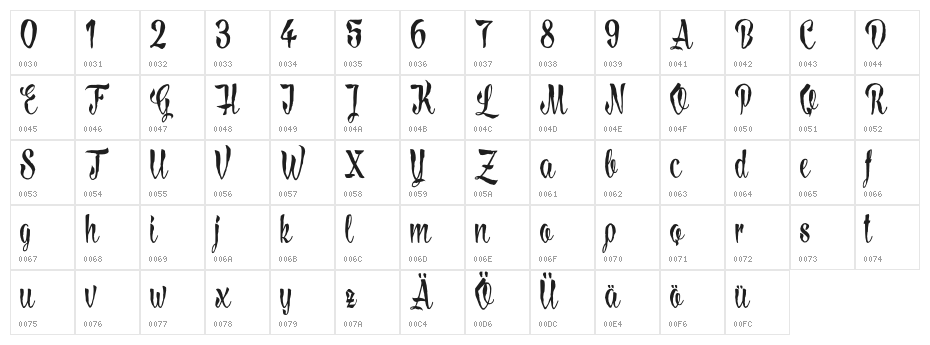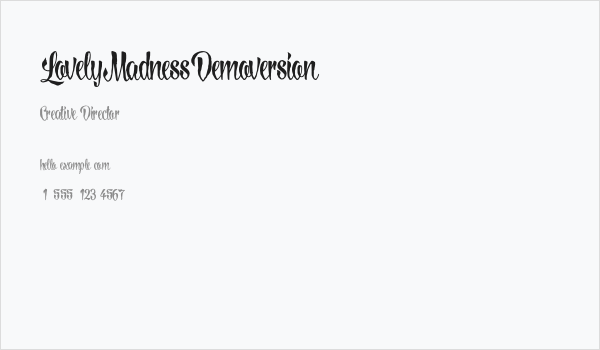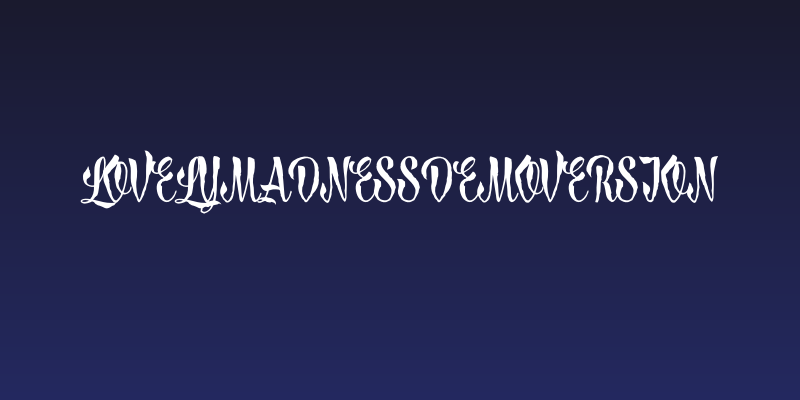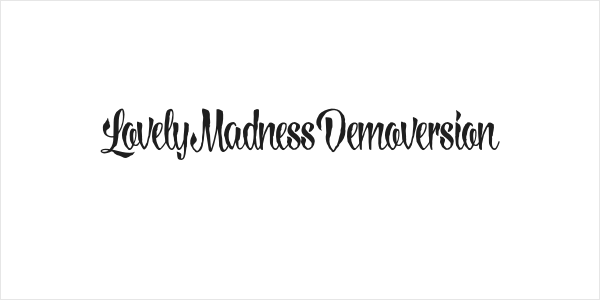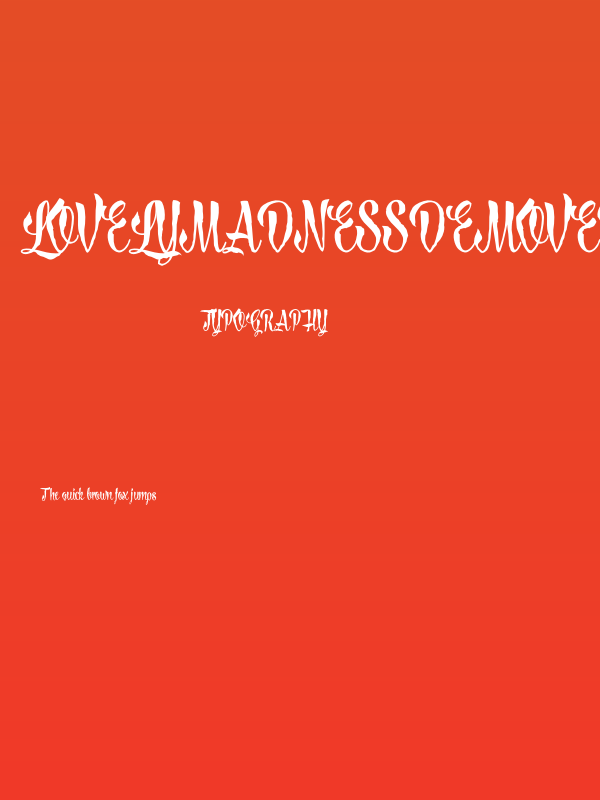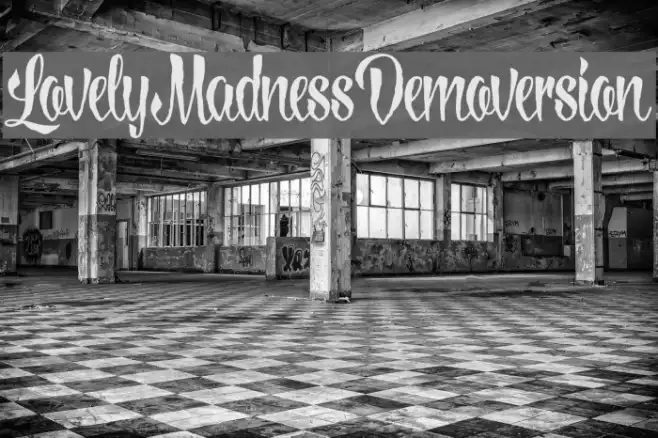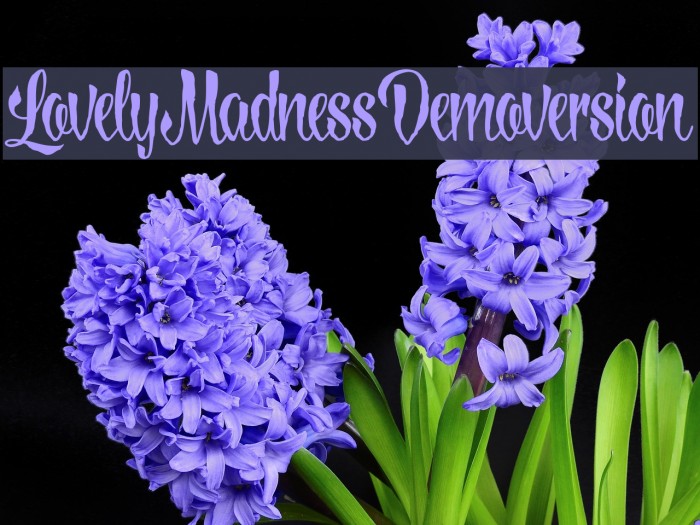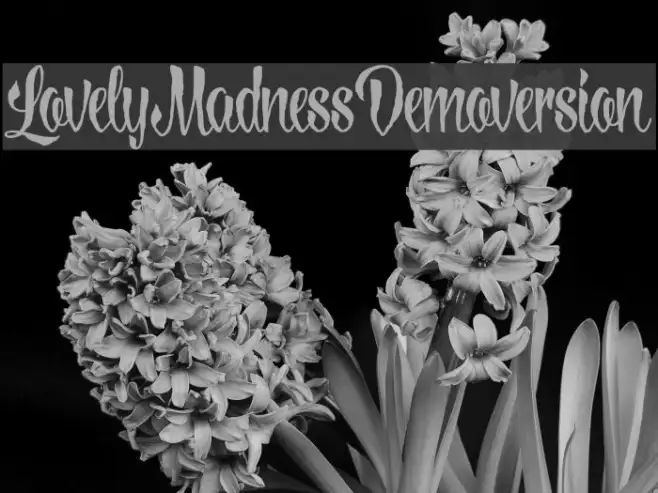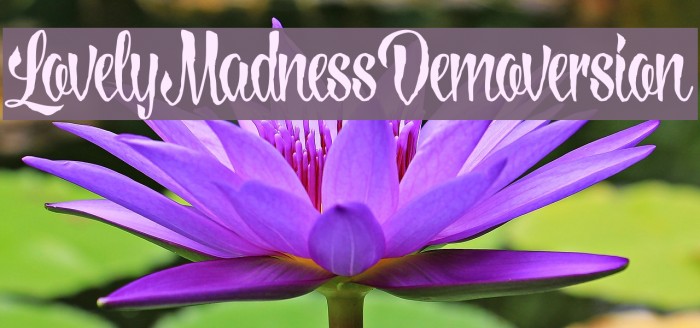
LovelyMadnessDemoversion Font
LovelyMadnessDemoversion Description
This font features a bold and expressive script style, characterized by its dramatic flourishes and dynamic strokes. The uppercase letters are particularly ornate, with sweeping curves and intricate details that give each character a unique personality. The lowercase letters maintain a consistent flow, complementing the uppercase with their elegant yet playful design. Numbers and special characters follow the same aesthetic, ensuring a cohesive look across all text. The overall appearance is both artistic and bold, making it suitable for projects that require a touch of creativity and flair.
| Proposed Projects | Ideal for branding, invitations, posters, and any creative design work that requires a distinctive and artistic touch. |